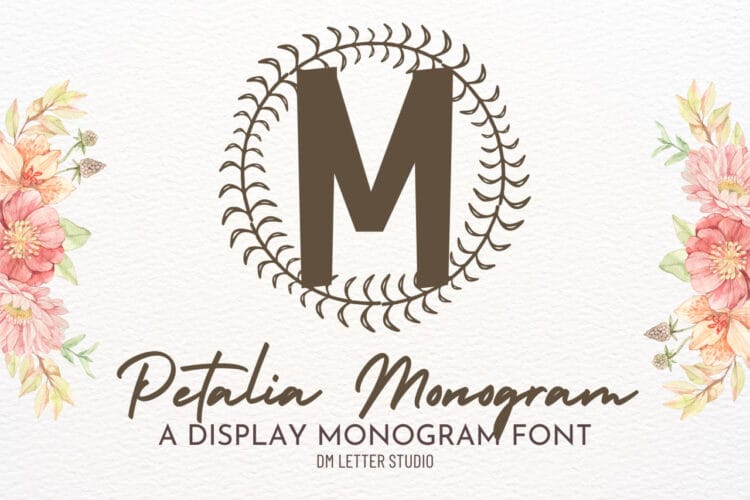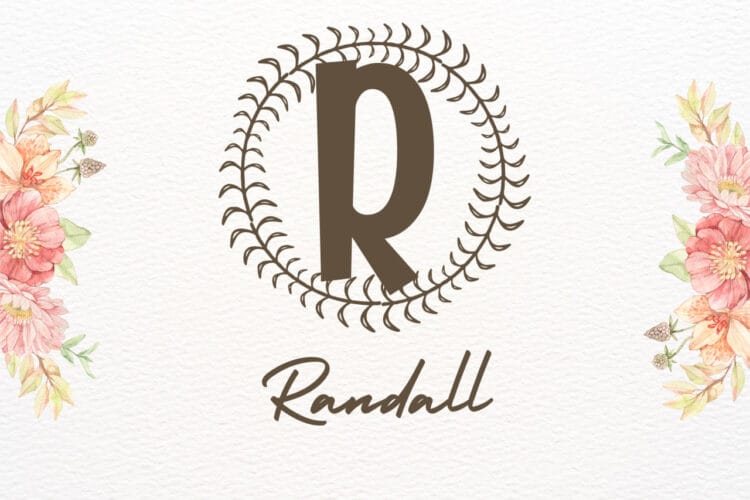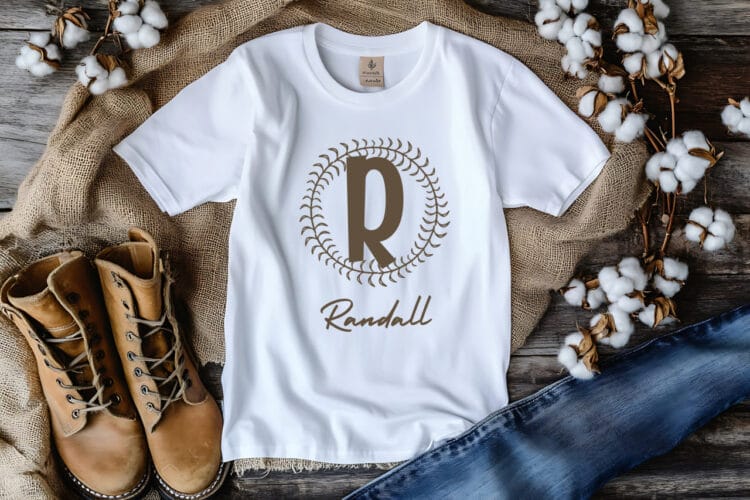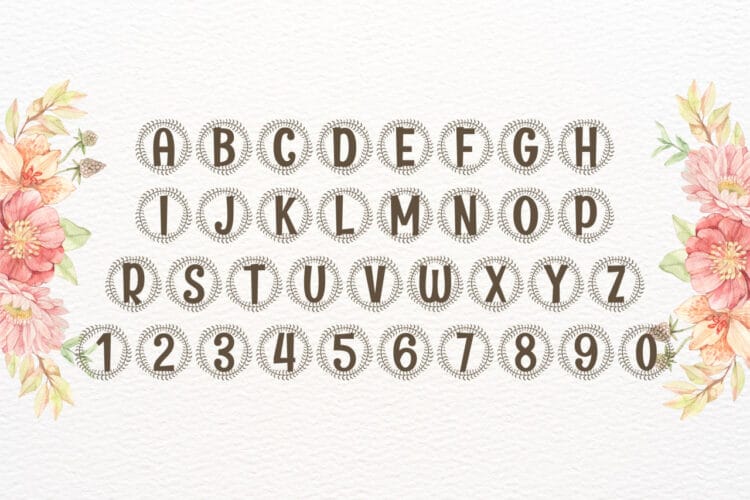
Meet Petalia, the Monogram Font
Petalia Monogram turns initials into soft floral emblems inspired by delicate petals and gentle curves. The design feels romantic, light, and timeless, with a graceful balance that never looks busy. Each letter stays clear at any size, so small tags remain readable while larger designs feel elegant and refined. Use Petalia for weddings, bridal events, boutique branding, stationery, keepsake gifts, and luxury packaging. As a result, your designs feel feminine, warm, and beautifully composed.
Fast layouts with the Petalia Monogram Font
Start with a central initial and let the petal-inspired form frame it naturally. After that, add names or dates using a soft serif or clean sans serif. Because Petalia holds its shape at small sizes, labels, stickers, cards, and tags stay crisp and readable. In addition, it works beautifully with oval frames, wreath accents, thin dividers, and minimal floral details. Finally, save color palettes like blush and ivory, dusty rose and linen, sage and cream, or charcoal and soft gold to reuse across product lines.
Creative uses and quick wins
Wedding monograms, invitation covers, and save-the-date cards
Logo seals, certificates, and boutique brand marks
Gift tags, stickers, and keepsake packaging
Labels for candles, perfume, skincare, soap, and handmade goods
Design tips for Petalia Monogram Font